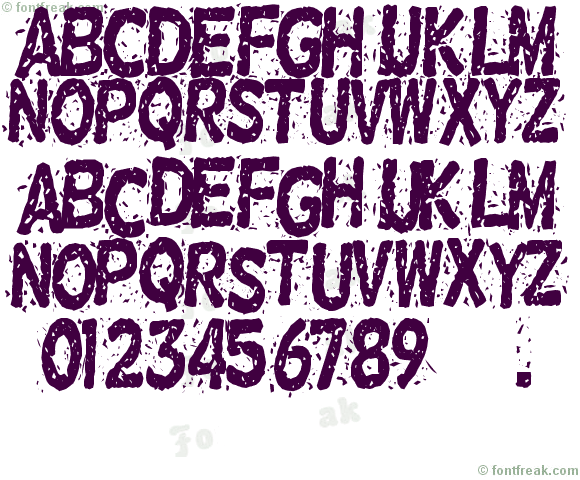
Nervous Rex
About Nervous Rex
Nervous Rex, designed by Vic Fieger in 2004, is a distinctive display font that embodies a playful yet edgy aesthetic. This freeware typeface boasts a unique, hand-drawn quality, characterized by irregular stroke weights and a slightly distressed appearance that adds an element of whimsy. The letters are spaciously arranged, allowing for easy readability while still maintaining a striking visual impact. The font's quirky design features uneven edges and a rough texture, making it ideal for projects that call for a touch of personality and creativity.
The Nervous Rex font is particularly well-suited for various applications. Its bold and unconventional style makes it a great choice for movie posters, where it can capture attention and convey a sense of fun. Additionally, it works wonderfully for comic book covers and graphics, aligning perfectly with the playful themes often found in that genre. Small business owners can use it for promotional materials, signage, or even restaurant menus, giving their brand a unique flair that stands out in a crowded marketplace. Content creators and graphic designers will also find this font invaluable for social media graphics and website headers, where a distinctive voice is essential.
The target audience for Nervous Rex includes graphic designers, small business owners looking to enhance their branding, and content creators who want to add an element of creativity to their projects. What sets the Nervous Rex font apart is its ability to blend a casual, approachable style with a bold presence, making it versatile for both personal and professional use. If you're seeking a distinctive typeface that can elevate your designs, consider the Nervous Rex font free download for your next creative endeavor. Its charming personality is sure to leave a lasting impression.